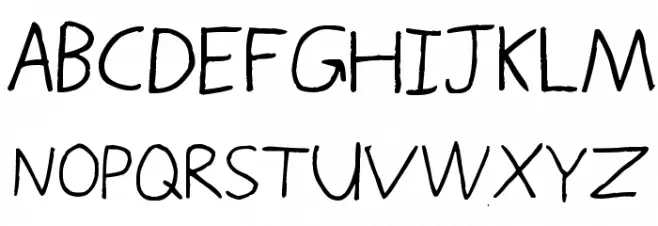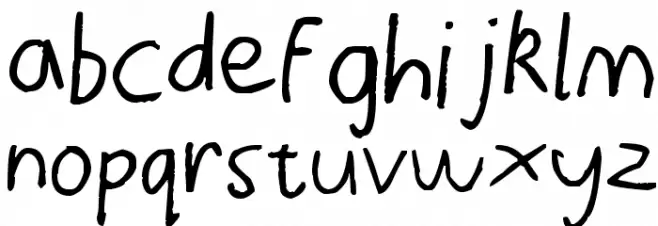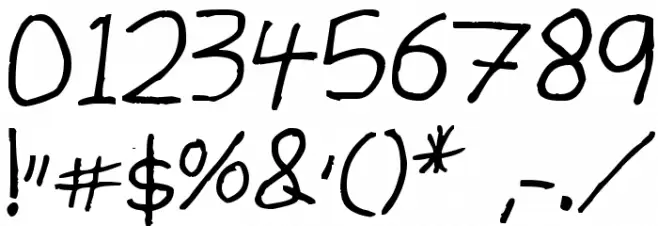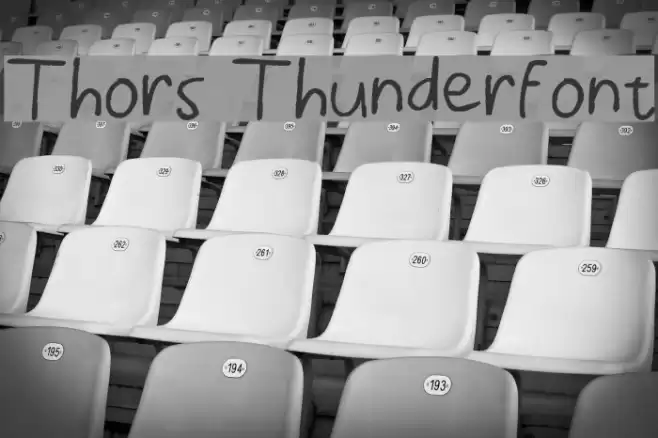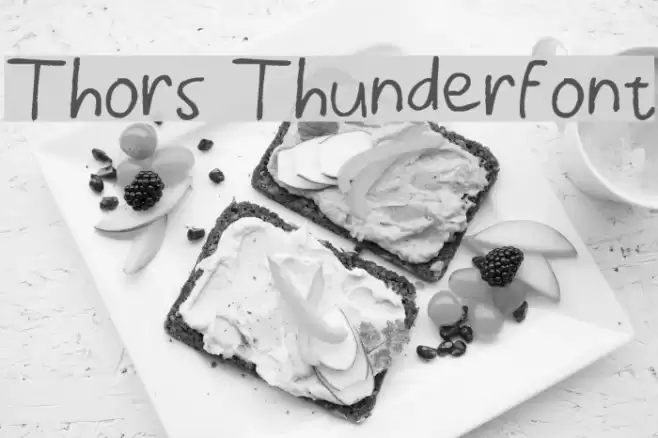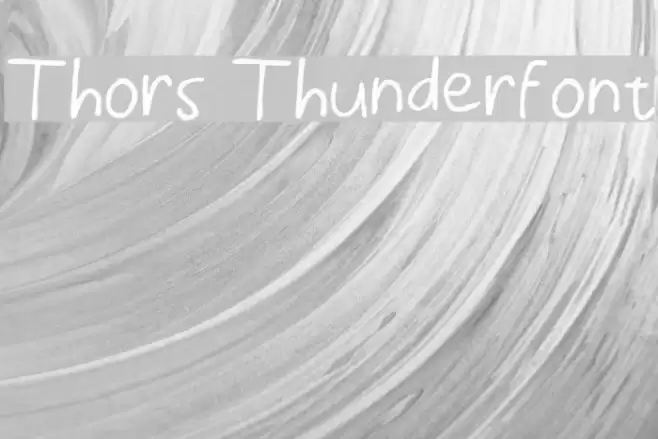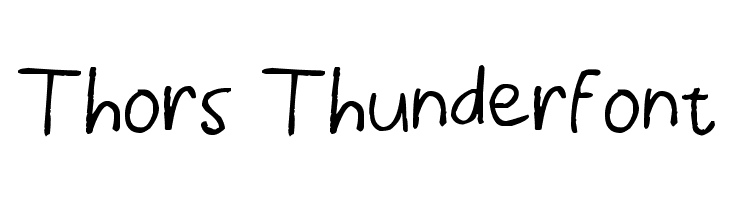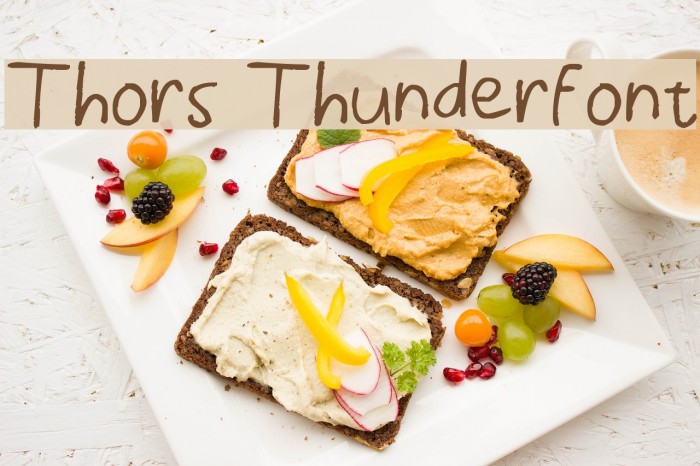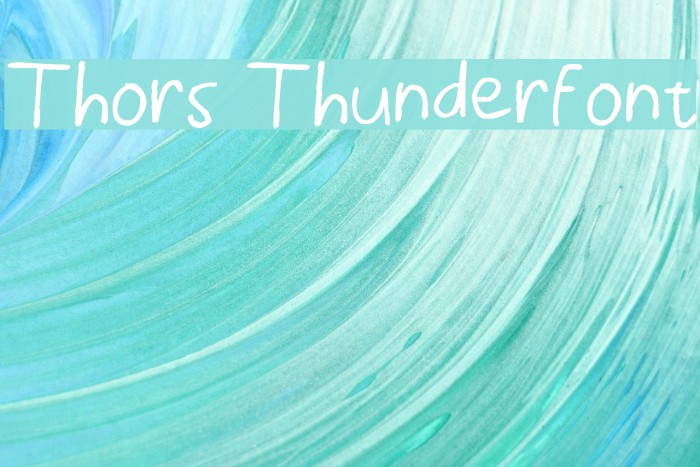
Thors Thunderfont
This font exudes a bold and dynamic handwritten style, characterized by its irregular strokes and playful, energetic appearance. The letters have a slightly rough texture, giving them a raw and authentic feel. The uppercase and lowercase characters maintain a consistent style, with a casual and informal vibe. The numbers and special characters follow the same aesthetic, ensuring a cohesive look across all elements. This font is perfect for projects that require a personal touch or a sense of spontaneity, such as creative posters, invitations, or branding materials.
A bold, dynamic handwritten font with a playful and energetic style.
- Proposed Projects: Ideal for creative posters, invitations, branding materials, and projects needing a personal touch.
- Overall Style: Decorative